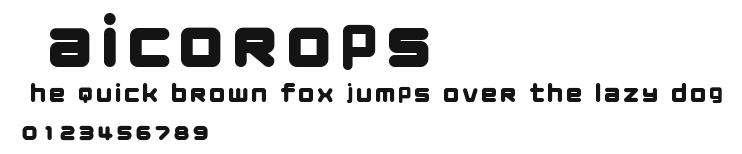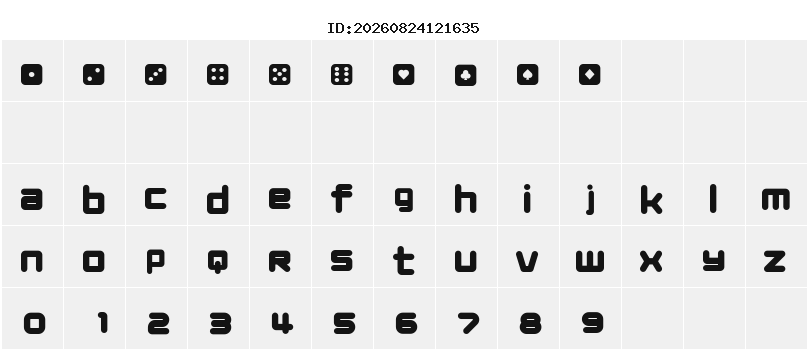
Saicorops Preview
• Font Name: Saicorops
• Full Font Name: Saicorops-Bold
• PostScript Name: Saicorops-Bold
About Saicorops.ttf
Saicorops.ttf is a modern, elegant sans-serif font designed for ultimate readability and visual harmony. Perfect for branding, headlines, web design, and print materials.